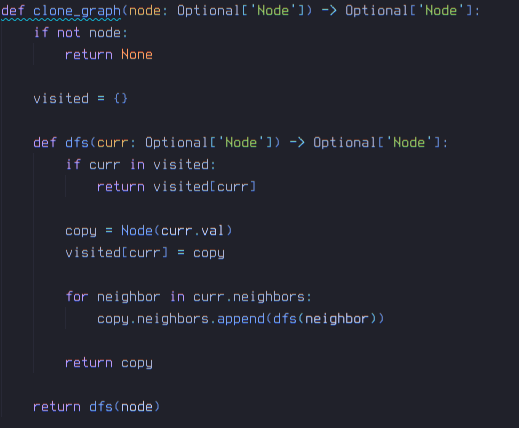
Why the fuck did vscode make bitmap fonts on linux so fucking blurry???Completely ruins the entire point of using bitmap fonts.
because ui fags literally cannot help themselves from heaping their never ending dogshit on top of functionally complete interfaces in some sort of perverted self-gratifying quest of "modernizing" everything they touch whilst burning as much cpu as possible just because the resources are there
>>108942598chromium browser is actively hostile towards bitmap fonts. the only way to keep them sharp is to have binarization svg filter applied. no idea of its impact on performance for code editor.
>>108942710this. chrome's font stack doesn't handle bitmap fonts properly. Google doesn't care about you or your usecases, only that you can properly see emojis on their kosher fonts (roboto, noto, etc.). Even their lower level skia graphics library has tons of issues supporting features that all text rendering stacks have supported since the 90's, like subpixel, sharp hinting, hinting-based aa, etc. All of these are public domain tech, you no longer have to go on your way to pay for M$ patents to have good looking text, but google only cares about phones/chomrbooks devices where these are non issues
>>108942598>bitmap fontsLMAO. What’s next, you gonna ditch cars and ride horses instead?
>>108942598Use MS Gothic, it's not exactly a monospace bitmap font but it renders as such when you use <20 sizes(i'm not sure of the exact number)You are not alone in being pissed off at their chronic inability to use bitmap fonts, they cite chromium issues but Atom which they conveniently killed had addons where you could quickly swap between fonts esp Unifont and bitmap font could function okYou may need to install a language pack to get MS Gothic>>108944063Bitmap fonts are the only ones that can both appear sharp and pack a lot of information on screen efficiently.Vector fonts in a code editor and terminal look pathologically blurry to me, you need >4k res to get them to look good and by then i'd rather use the resolution to display more longer lines
>>108942598what do you mean? on linux font sharpness is not a metric, so this "blurriness" you refer to is not actually real
>>108942598see if `"workbench.fontAliasing": "none”,` works in Linux like it does in macOSt. using Departure Mono at even multiples of 11/2 on his 200% text zoom monitor
>>108942598emacs doesn't have this problem. neither does firefox btw
>>108944130I don't understand the desire to want to read text for antspeople break up their textlike thisfor a reason
>>108942598what makes you think sharpness is a metric?